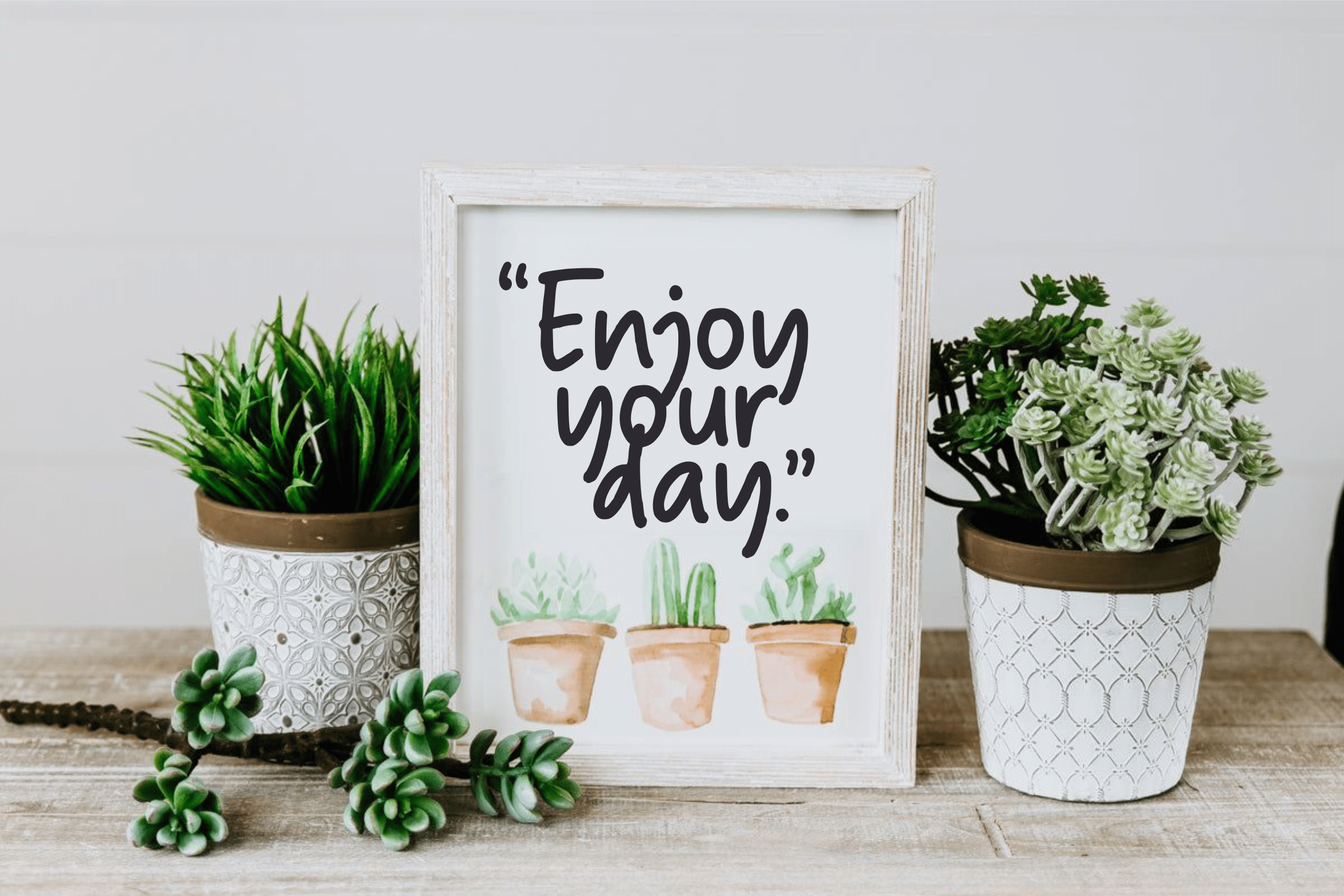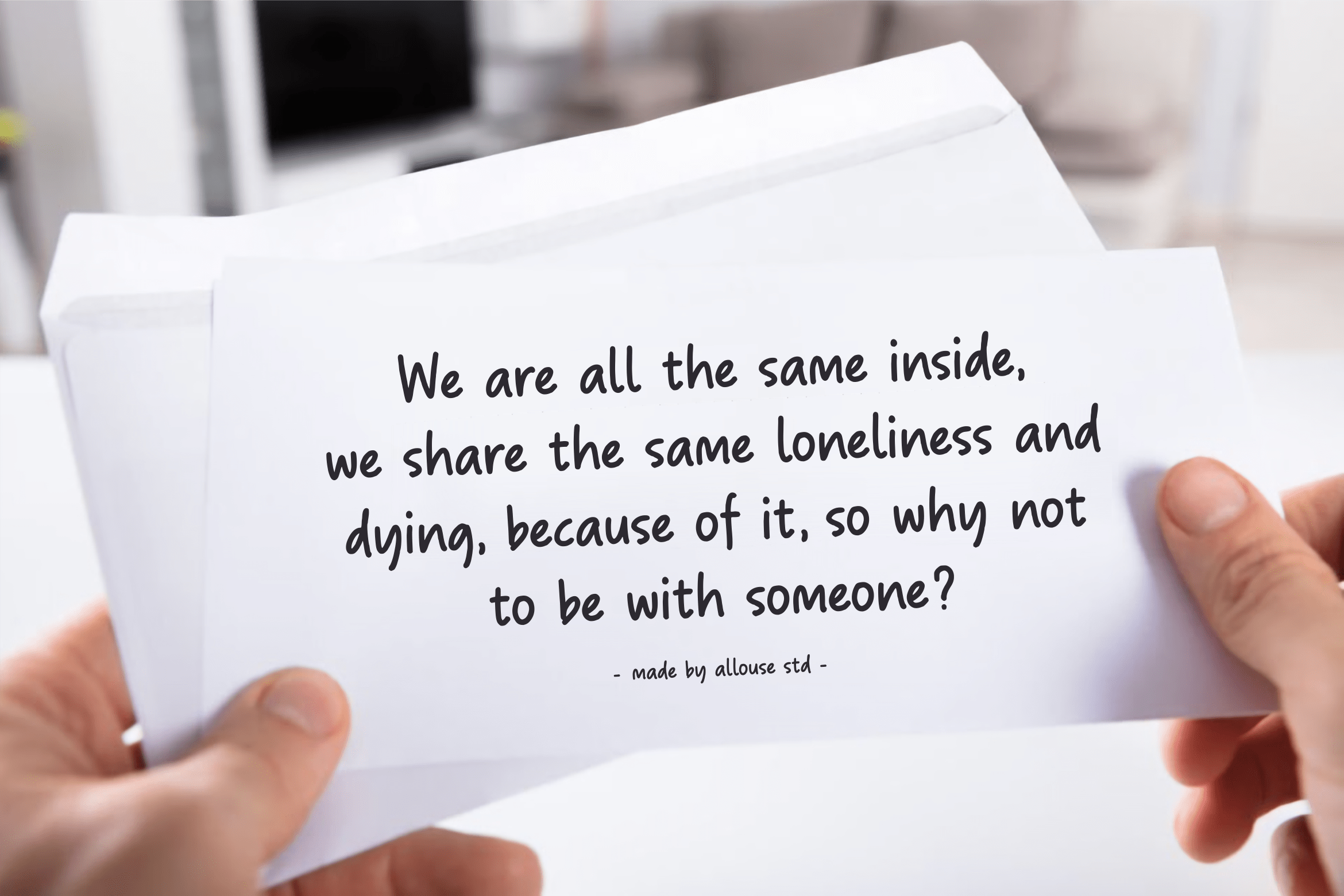
Milespink Font
Milespink Display Font is a Quirky Handwritten Font. Milespink is perfect for product packaging, branding project, megazine, social media, wedding, or just used to express words above the background.